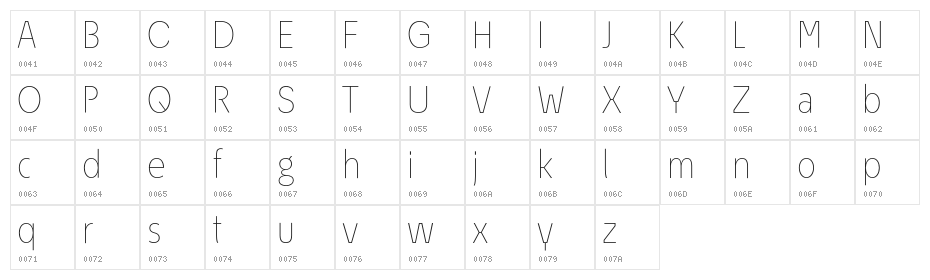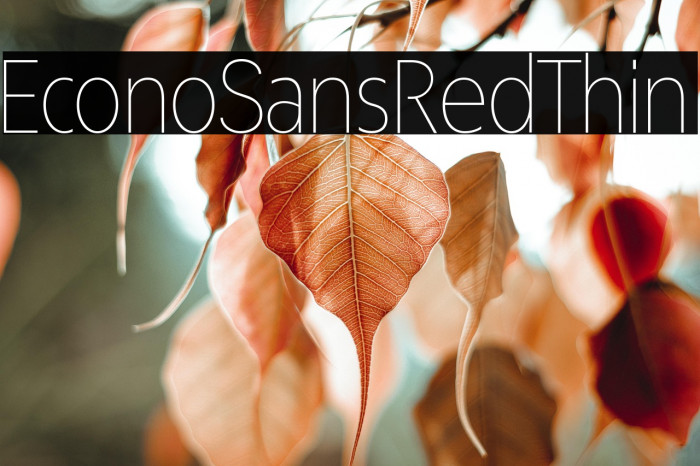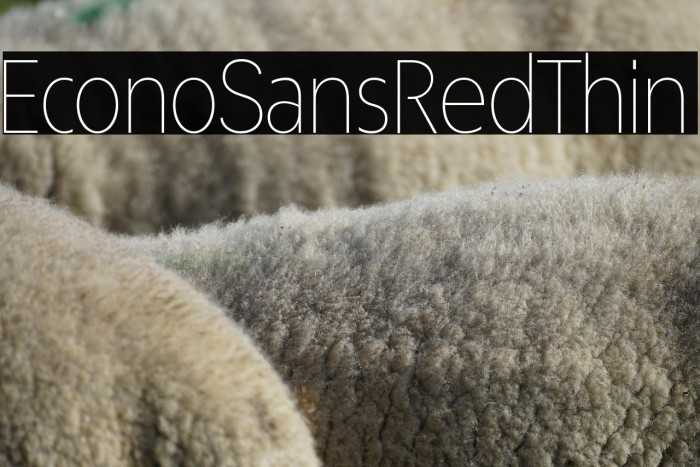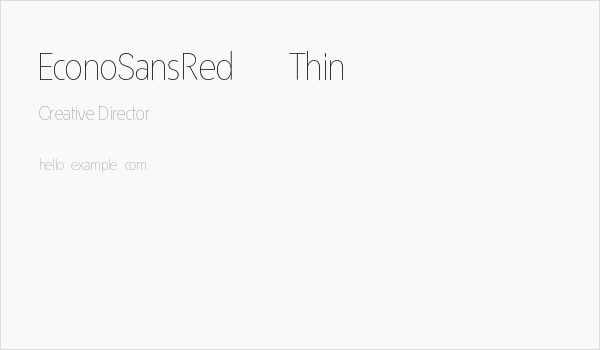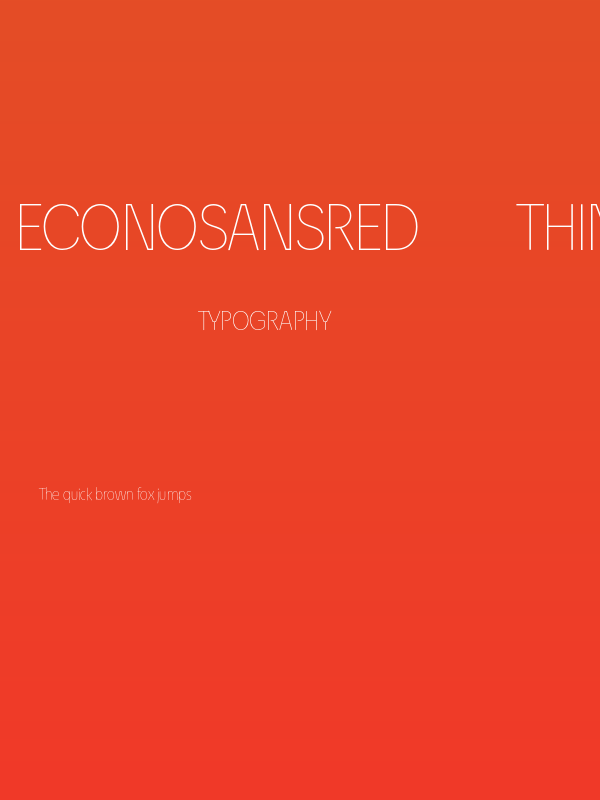
EconoSansRed-35Thin Font
EconoSansRed-35Thin Description
This font features a sleek, modern design with clean lines and a minimalist aesthetic. The characters are tall and narrow, giving a sense of elegance and sophistication. The uppercase letters are uniform in height, while the lowercase letters maintain a consistent baseline with subtle variations in ascender and descender lengths. The font's thin strokes and open counters contribute to its airy and light appearance, making it ideal for contemporary design projects. The overall geometric structure of the characters provides a sense of balance and harmony, while the uniform stroke width ensures readability and clarity.
| Proposed Projects | Ideal for branding, editorial design, web design, and minimalist posters. |